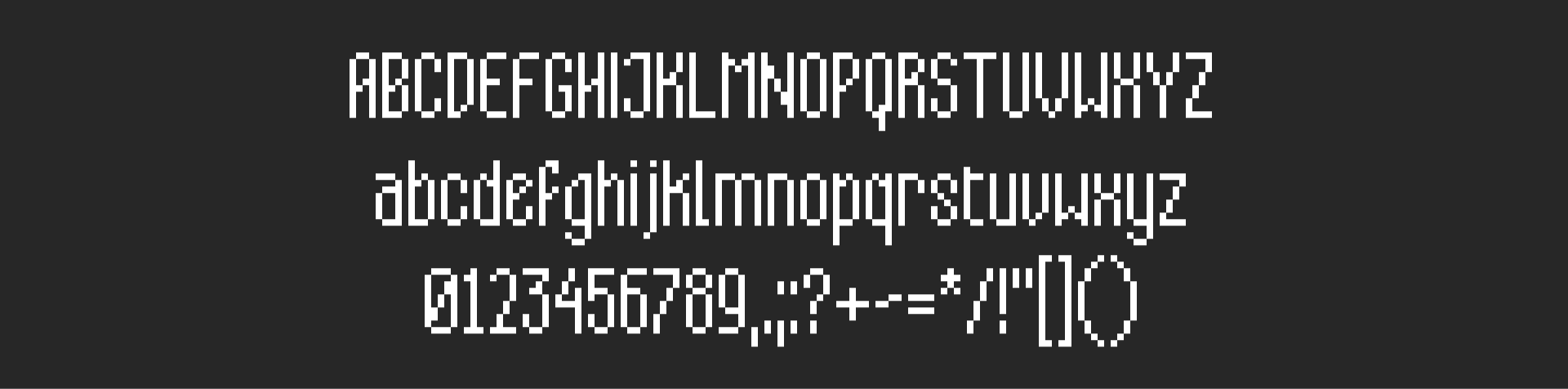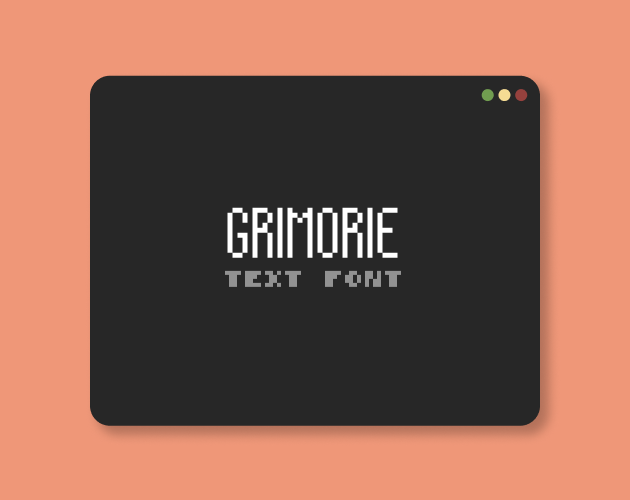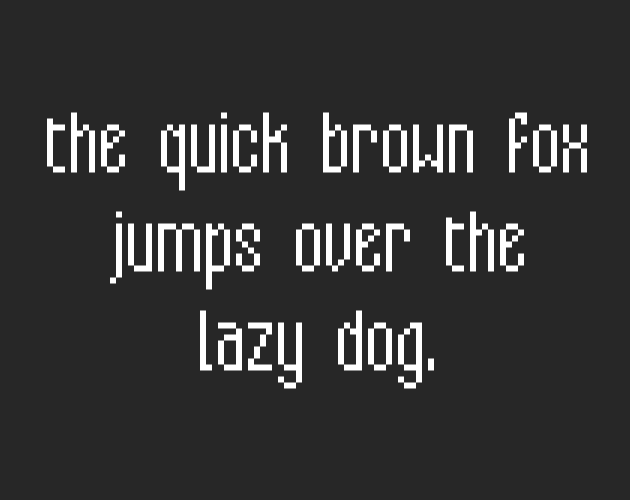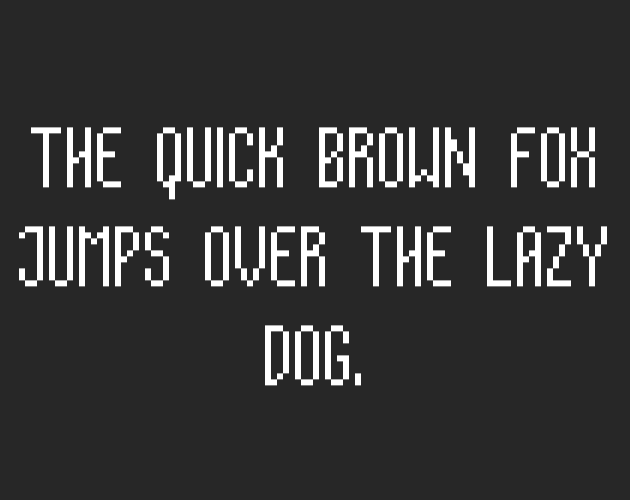
Pixel Font - GRIMORIE
GRIMORIE is a 10px tall pixel font!
Full Character Set:
ABCDEFGHIJKLMNOPQRSTUVWXYZ
abcdefghijklmnopqrstuvwxyz
0123456789,.;:?+-=*/!"[]()